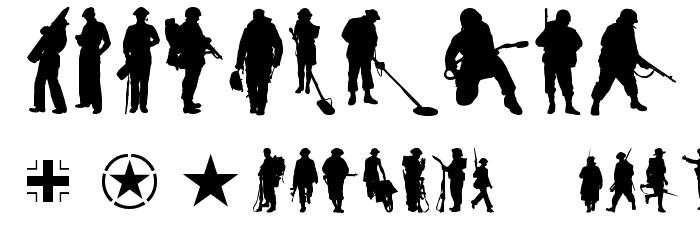
SoldierWW2 Font
SoldierWW2 Description
This is a collection of black silhouette illustrations depicting World War II soldiers in various poses, some on horseback, with different equipment and weapons, as well as a few military symbols and insignias. The set includes both male and female figures, and the silhouettes are solid and highly contrasted against a white background.
A set of WWII soldier and symbol silhouettes in black from Dingbats fonts.
- Proposed Projects: Historical posters, educational materials, themed event graphics, video game assets, military presentations.
- Overall Style: Decorative, Thematic, Historical
- Use Case: Logos, Themed headlines, Educational graphics, Posters